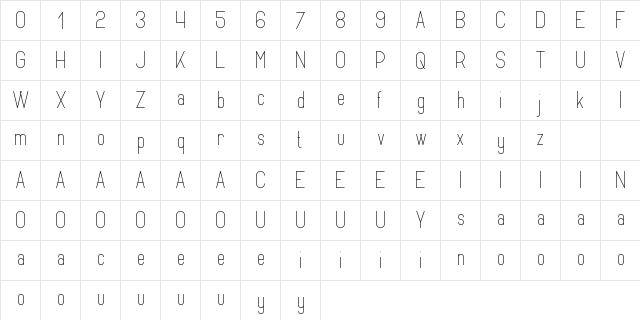
Opinio Regular
Design Context for Opinio Typeface
Opinio is a composed and adaptable typeface that performs quietly and consistently across a wide range of design contexts.